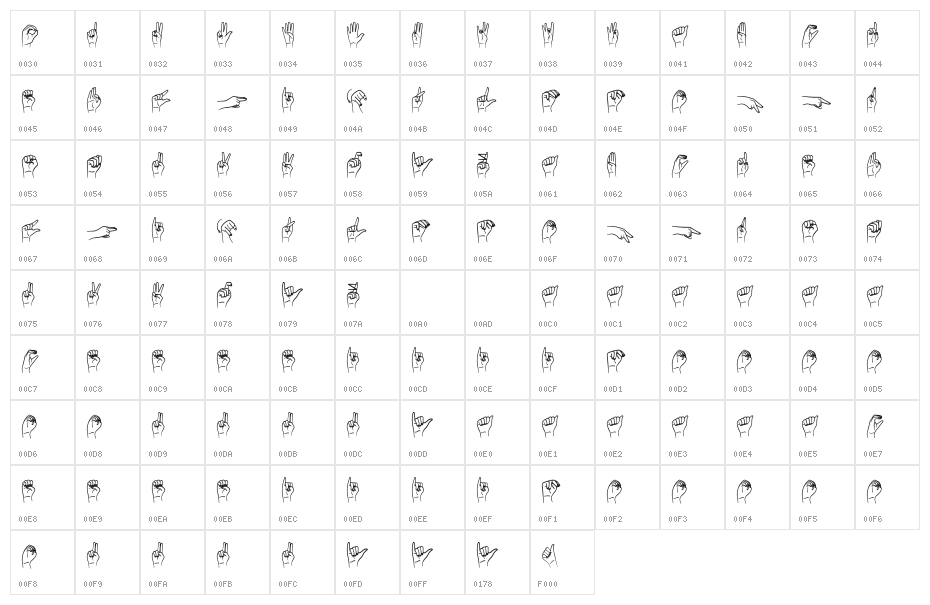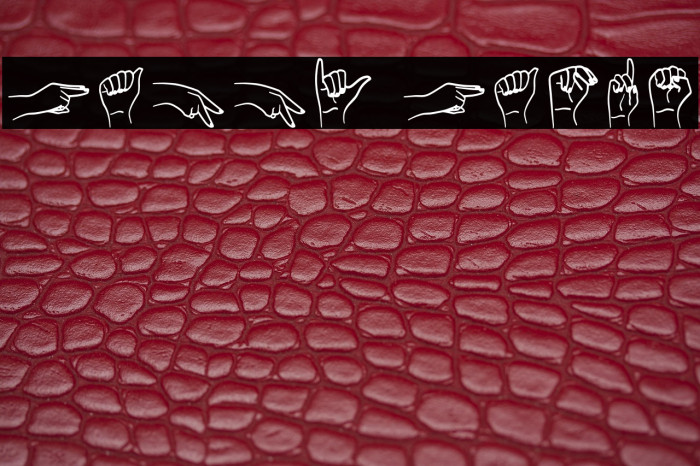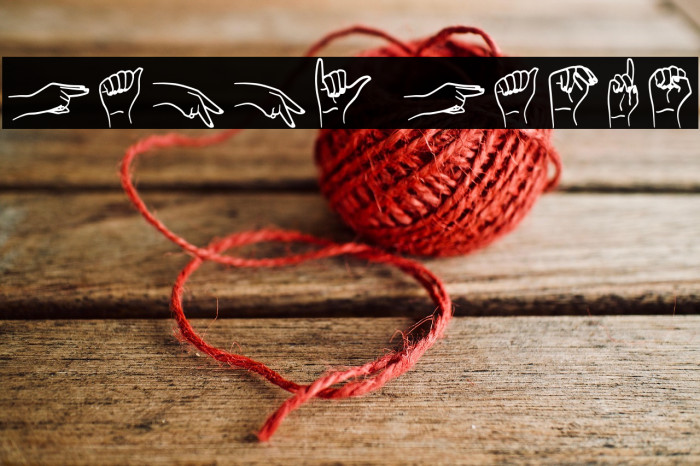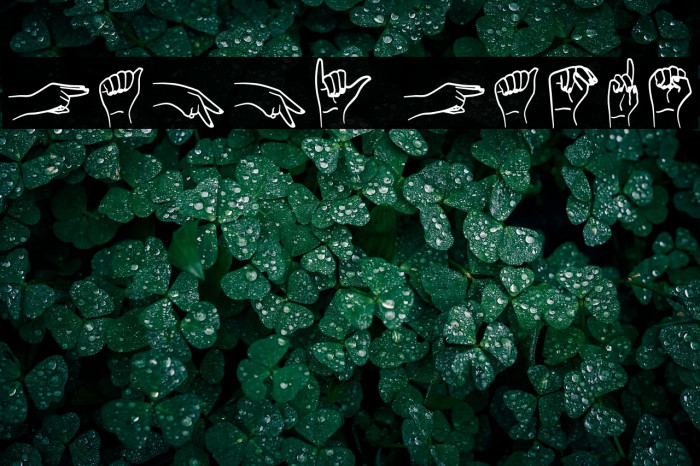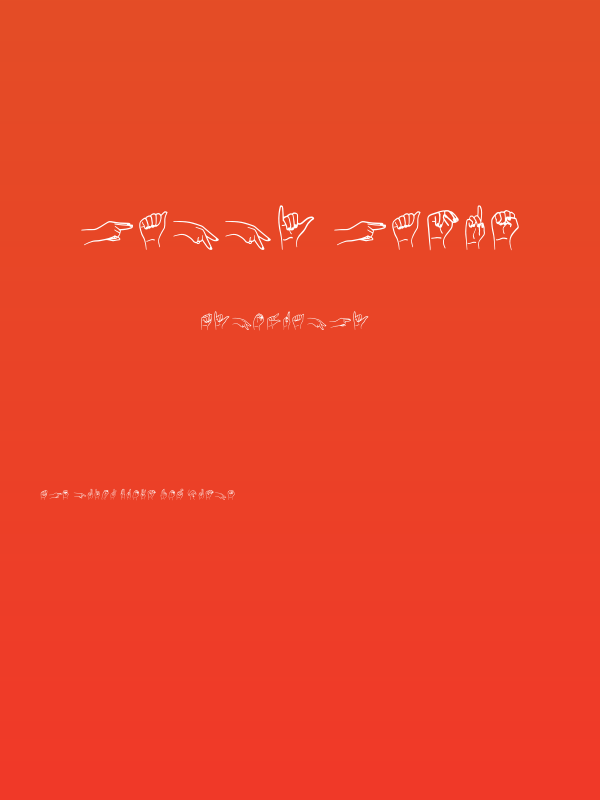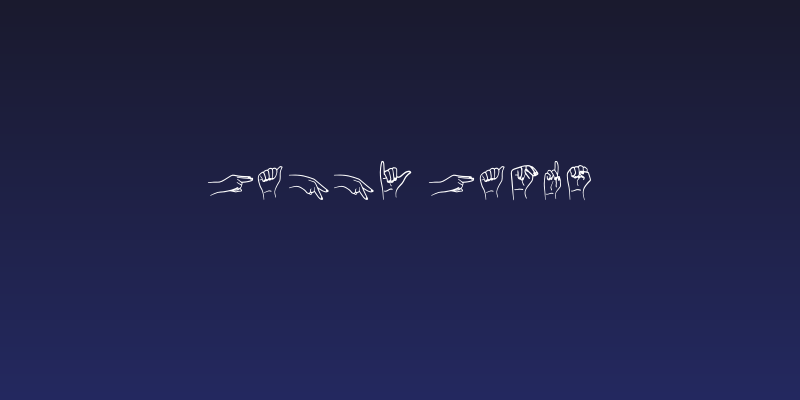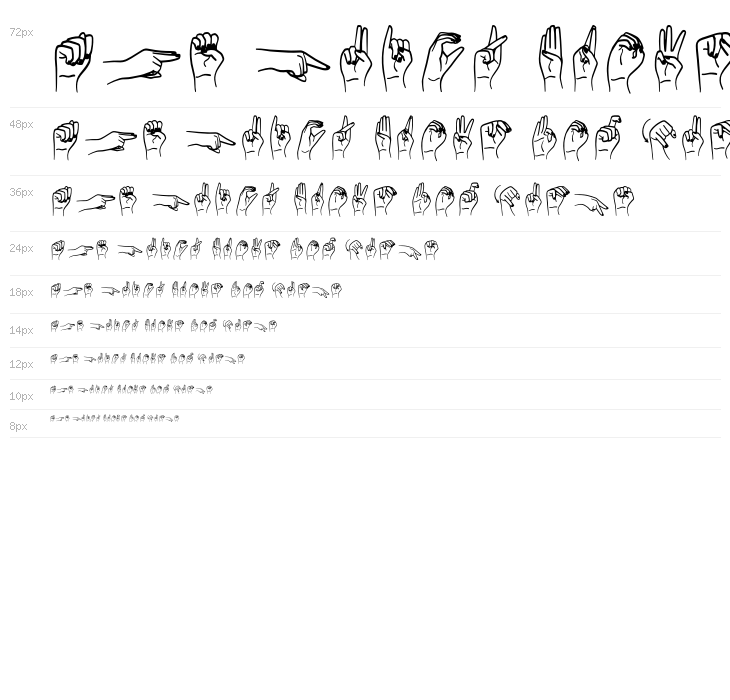
Happy Hands Font
Happy Hands Description
| Overall Style | Playful, illustrative, inclusive |
| Use Case | Headlines, logos, educational content, posters |
| Proposed Projects | Educational materials, children's books, accessibility campaigns, playful branding, posters, and inclusive design projects. |